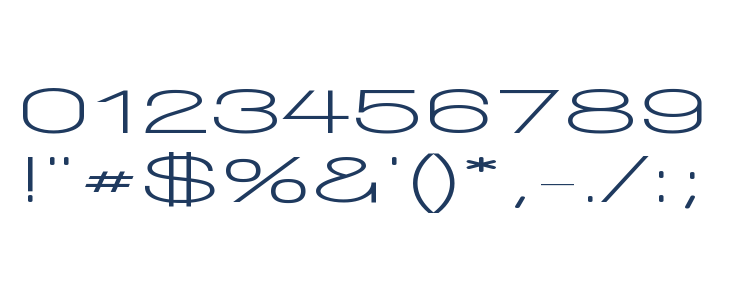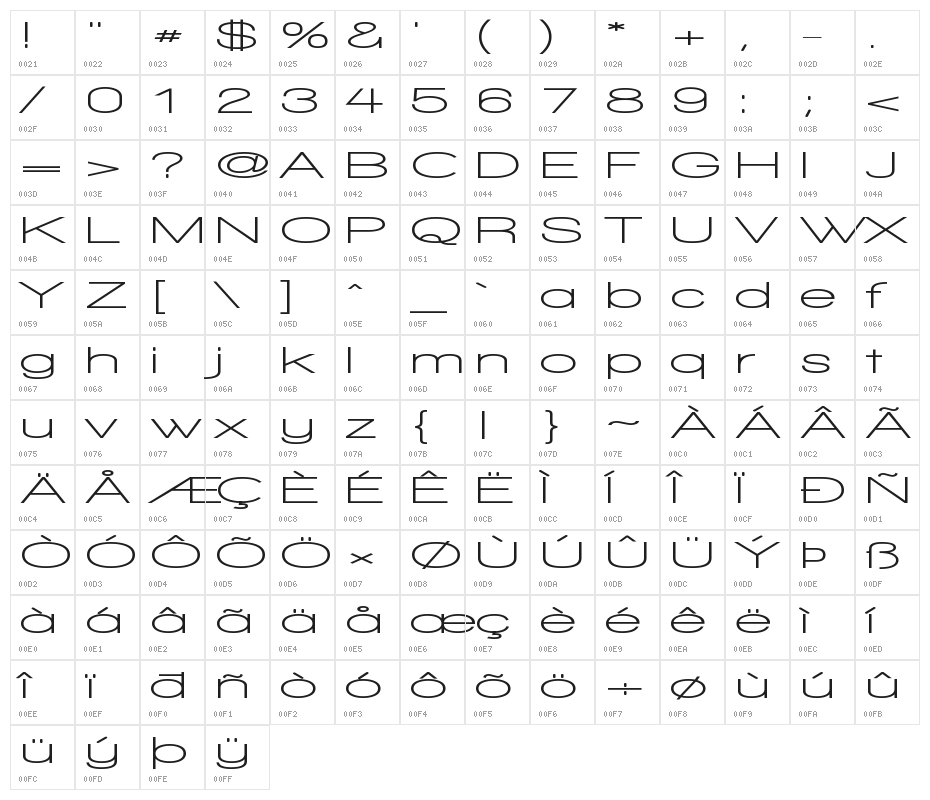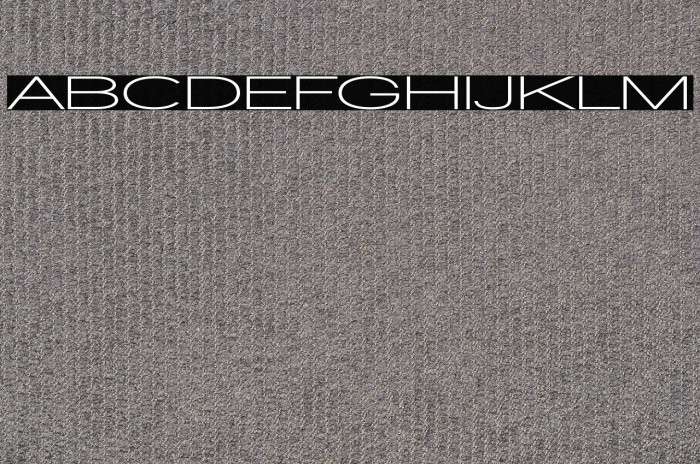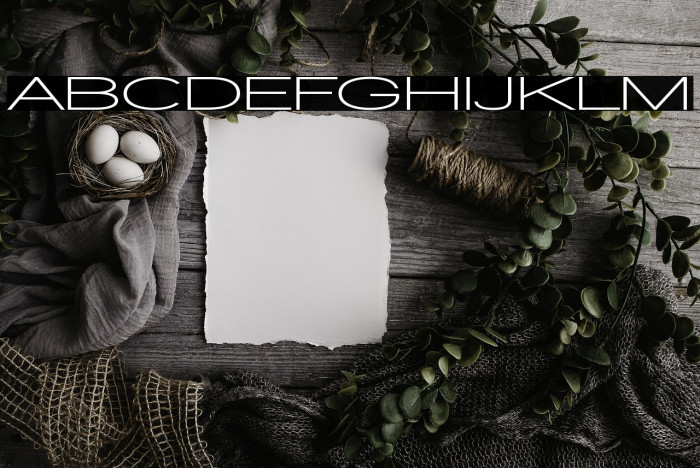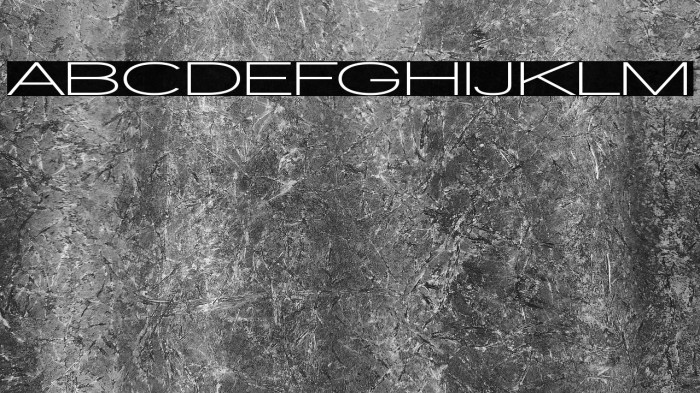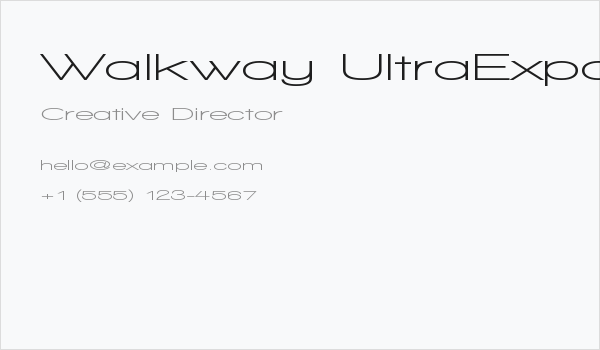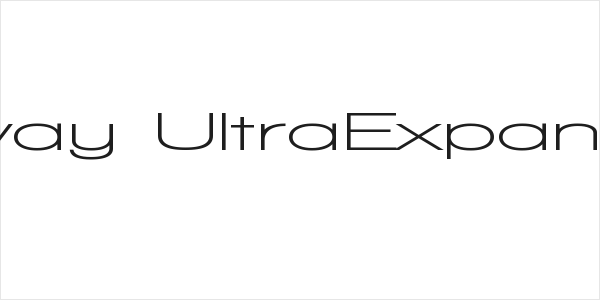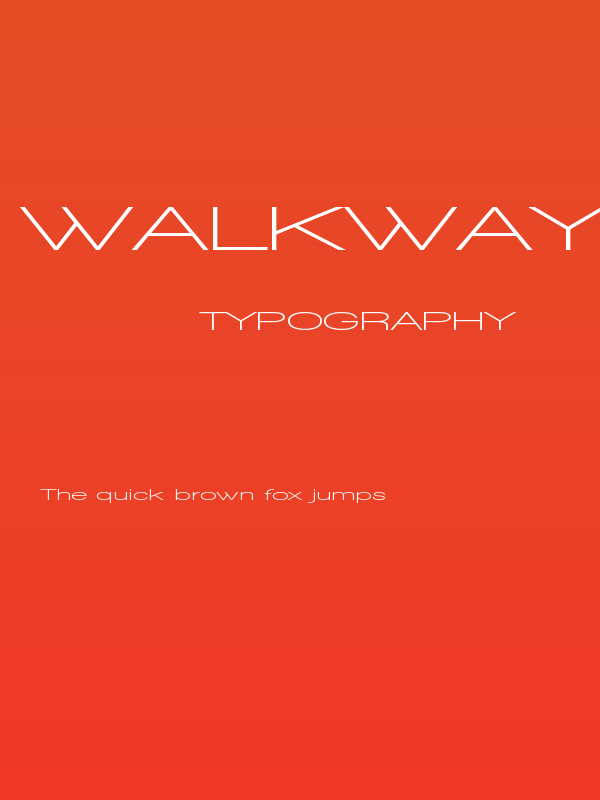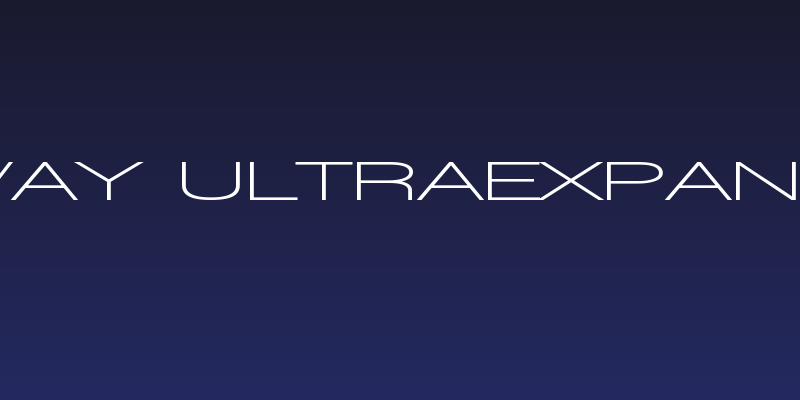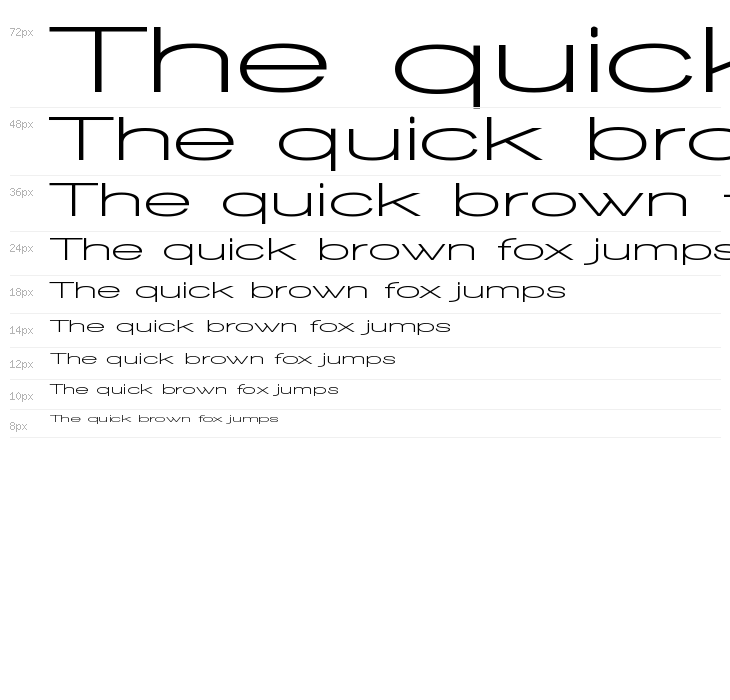
Walkway UltraExpand Bold Font
Walkway UltraExpand Bold Description
This font features an ultra-expanded style with a bold weight, offering a modern and sleek appearance. The characters are evenly spaced, providing a clean and organized look. The uppercase and lowercase letters maintain a consistent design, with smooth curves and straight lines that enhance readability. The numerals are distinct and align well with the overall aesthetic. Special characters are included, complementing the font's comprehensive utility. This typeface is ideal for projects that require a contemporary and professional touch.
| Proposed Projects | Ideal for branding, advertising, headlines, and modern web design. |